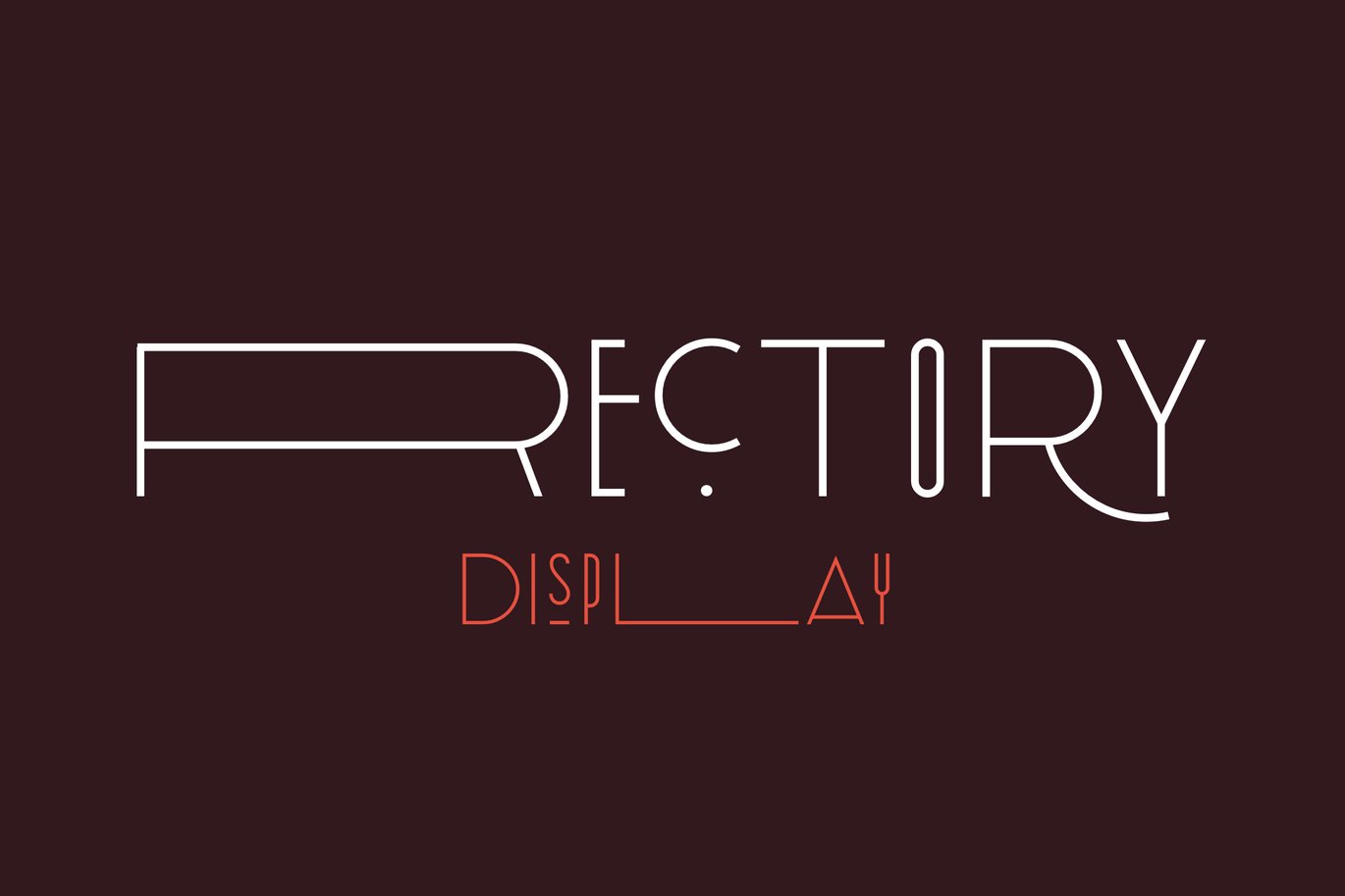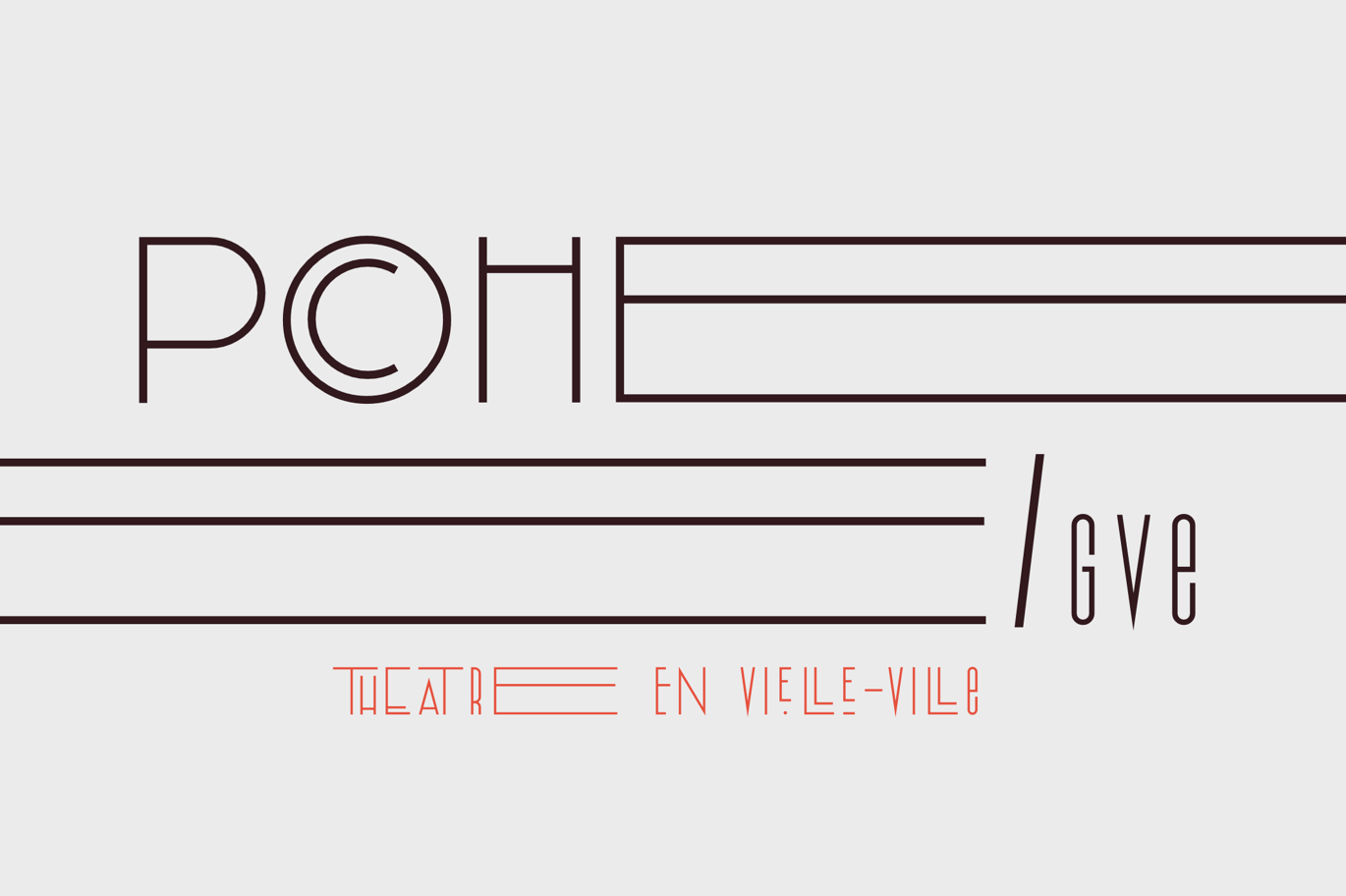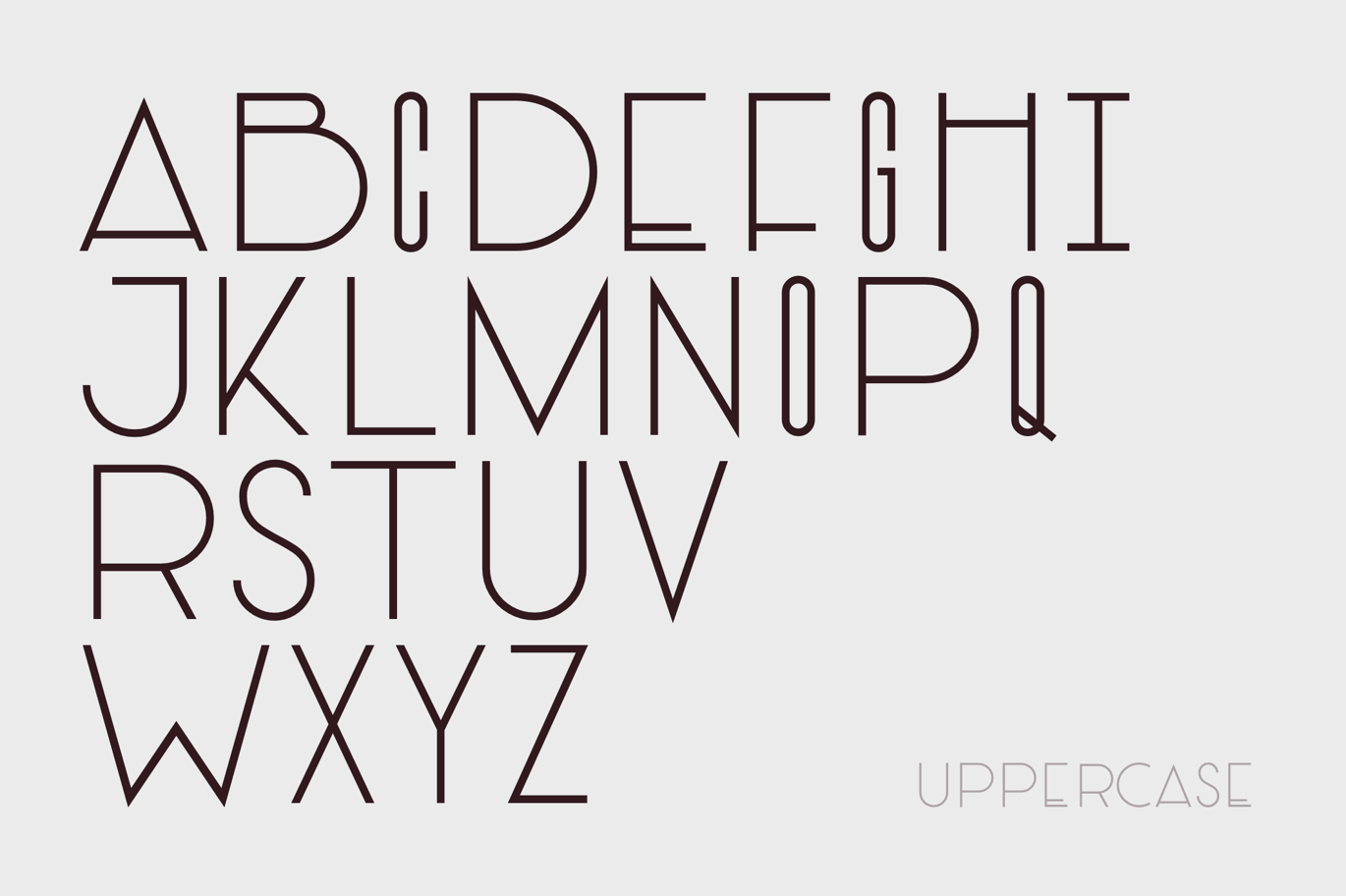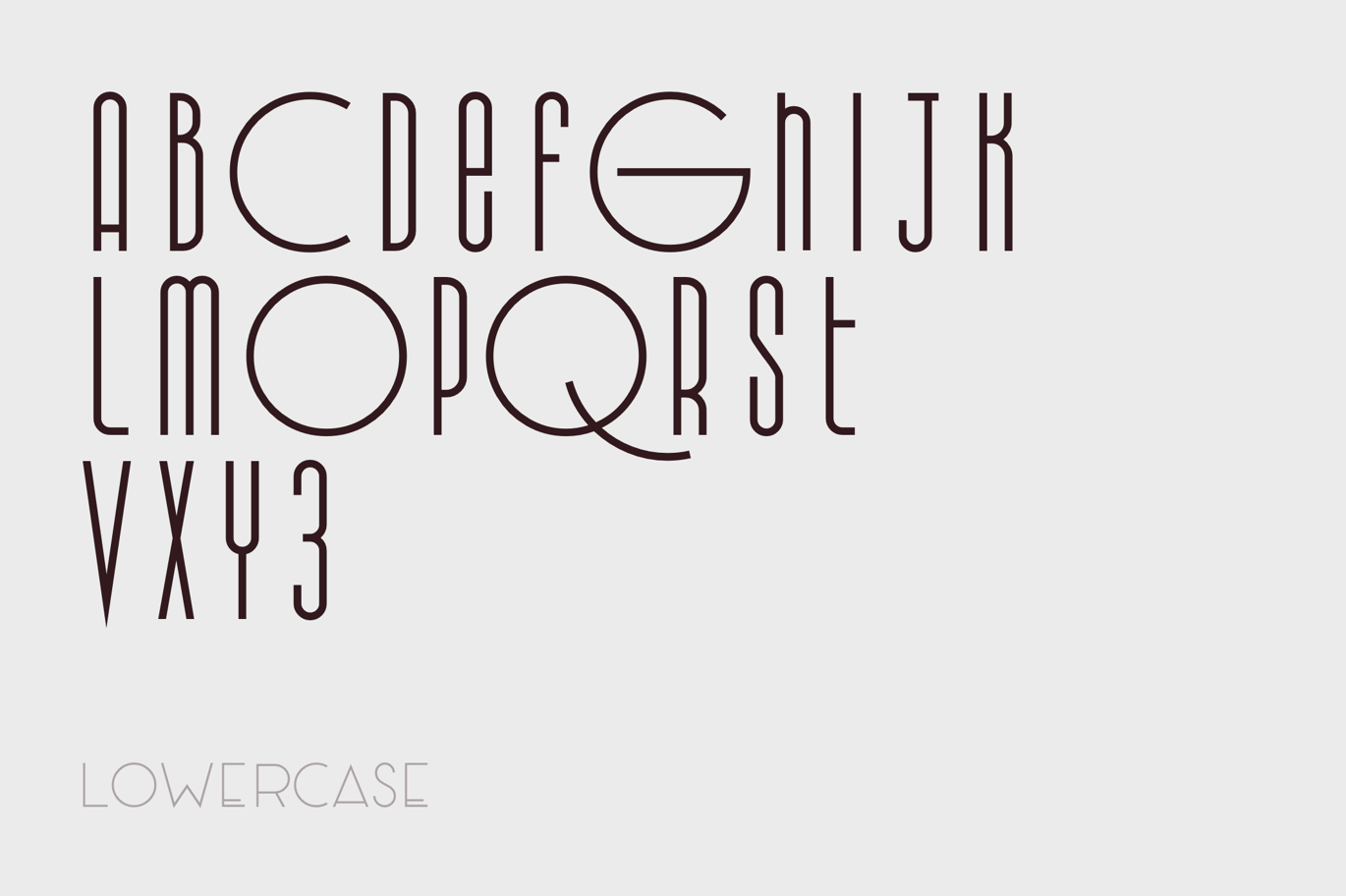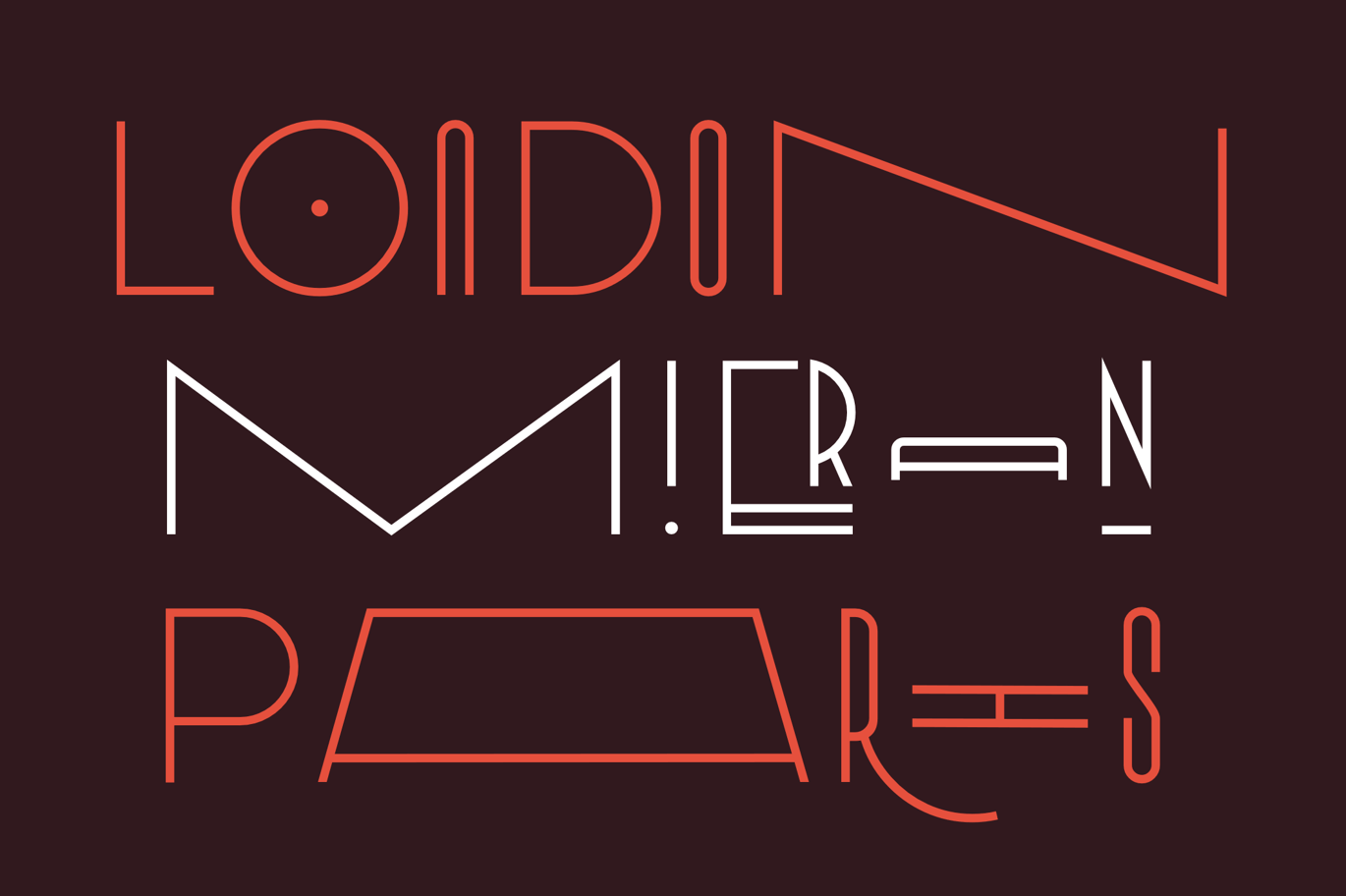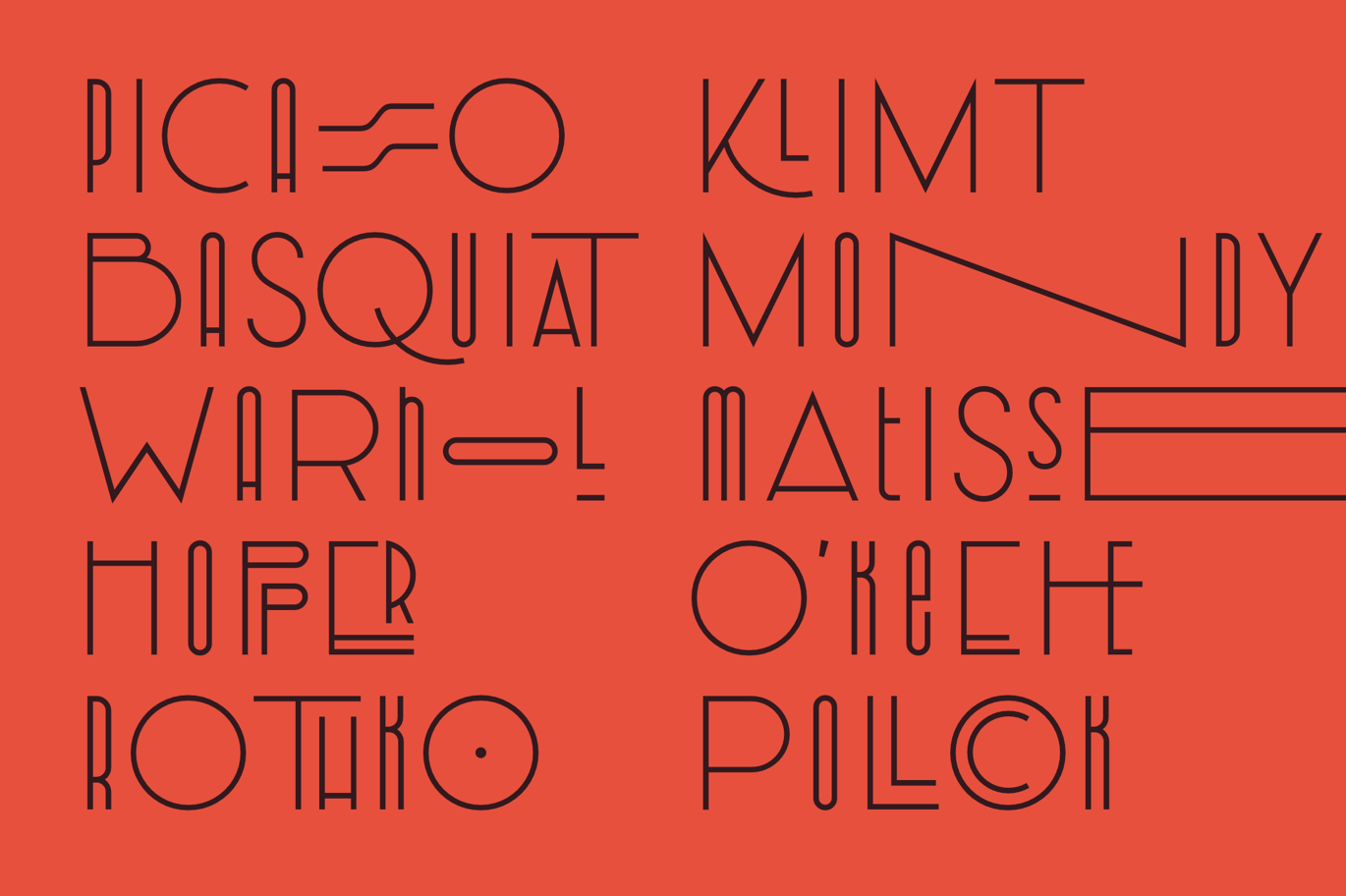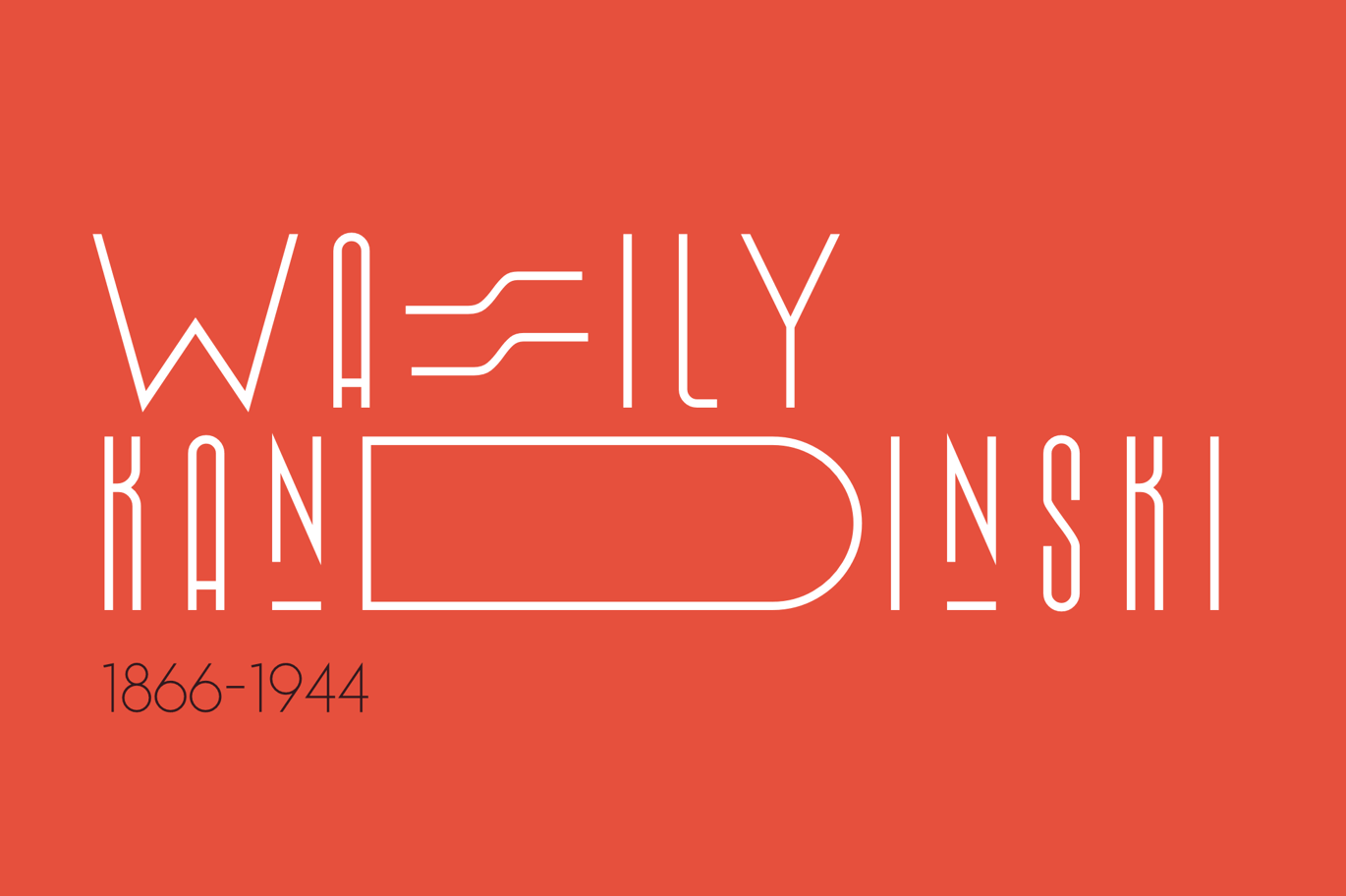
Rectory Display Art-Deco Font
Introducing our new typeface, Rectory – a contemporary, Art Deco-inspired display typeface full of character, quirky ligatures, and glyphs to keep your designs fresh.
This is a display font that we recommend using in the following types of work; magazines (titles and layouts), logos and branding, invitations, quotes, blog headers, posters, and advertising.
- Uppercase and lowercase glyphs
- Unique ligatures glyphs